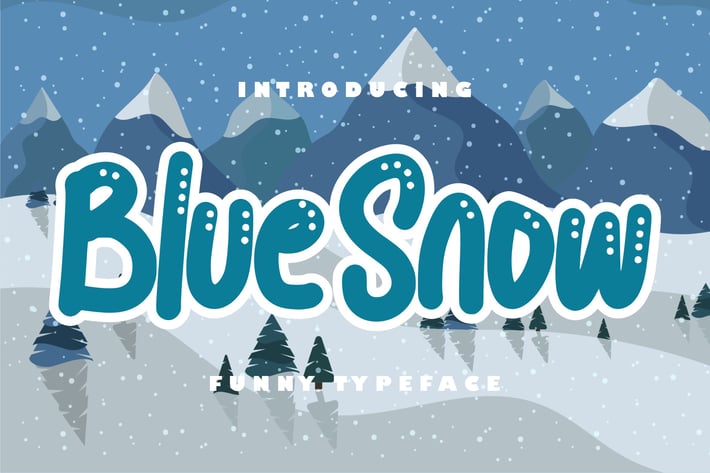
Blue snow | Funny Typeface
Blue snow | Funny Typeface with a calligraphy style, So beautiful on invitation like greeting cards, branding materials, business cards, quotes, posters, and more!